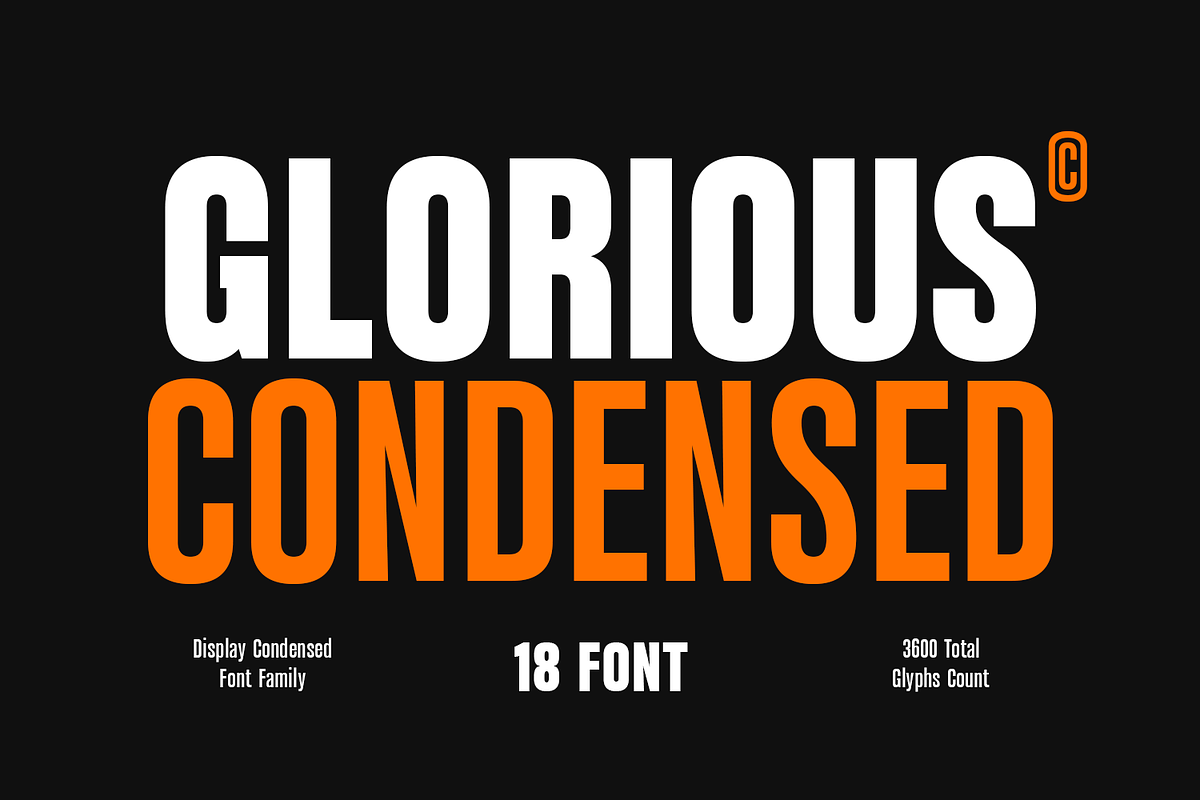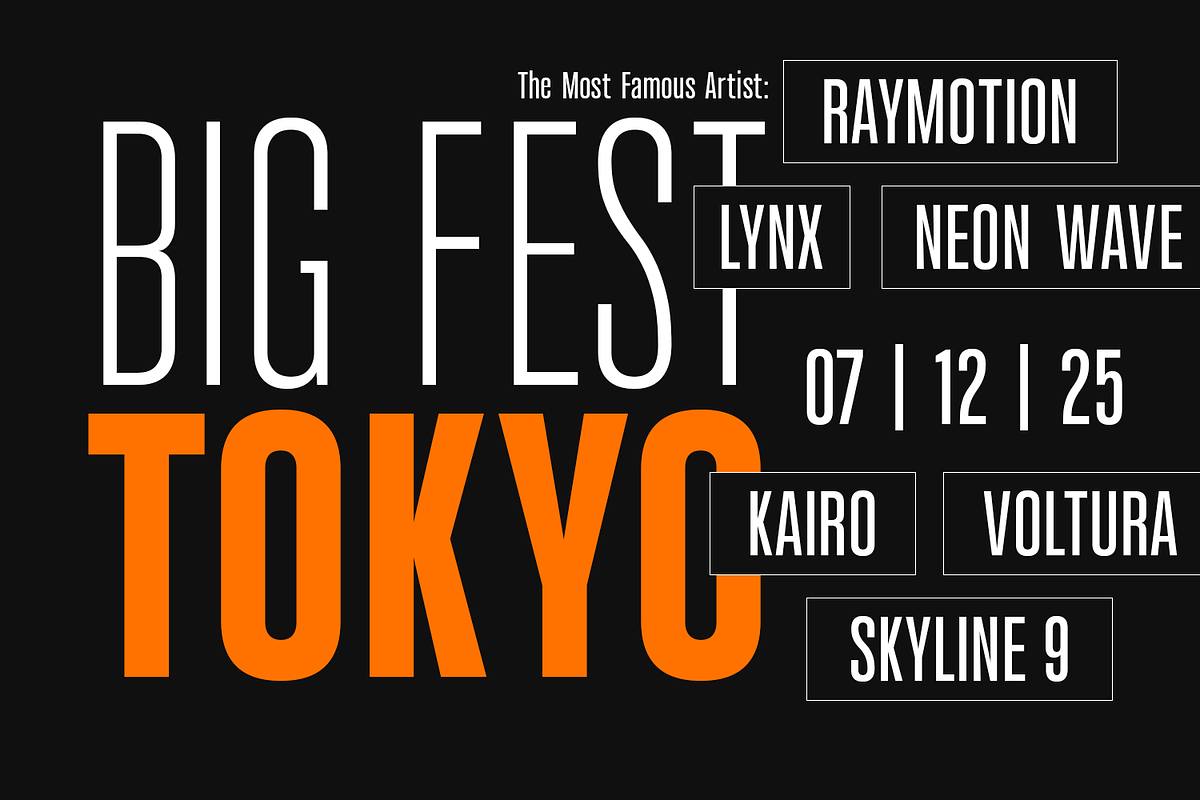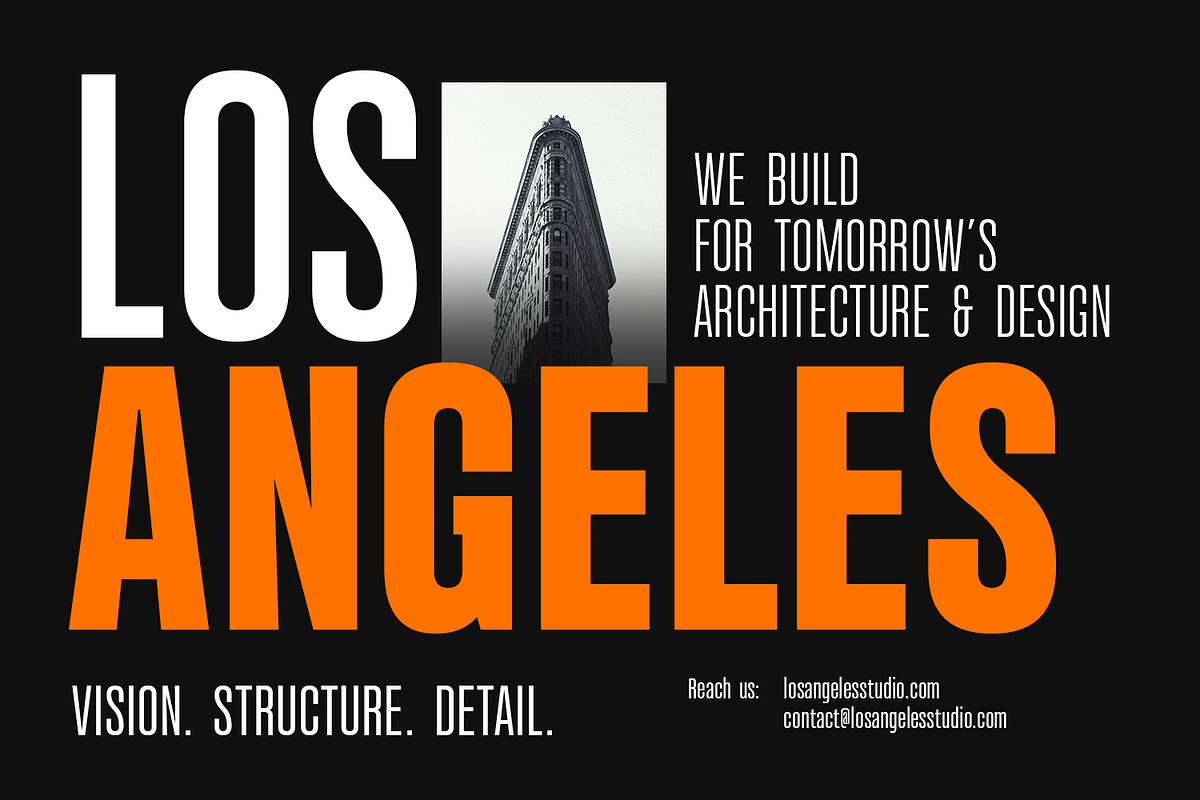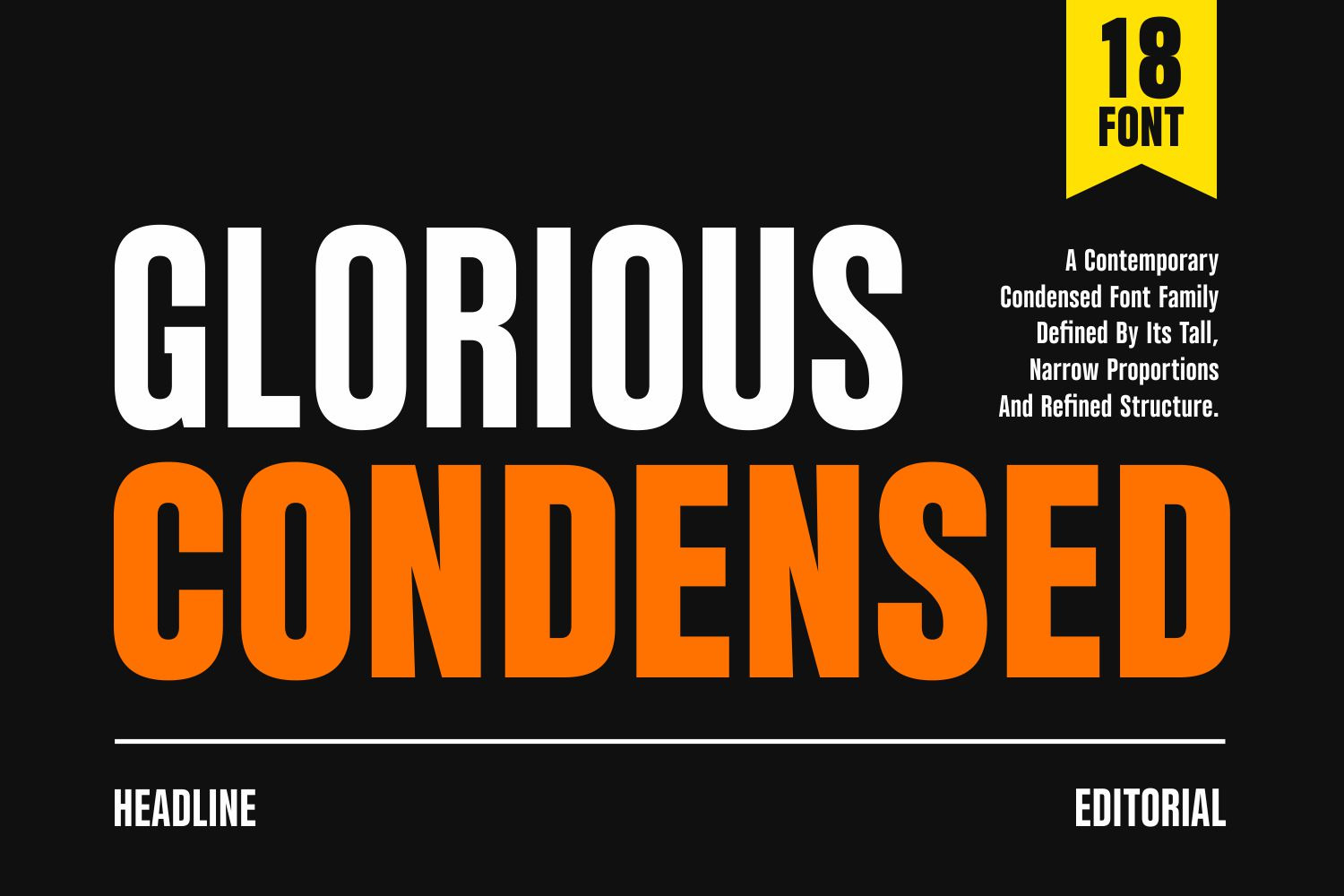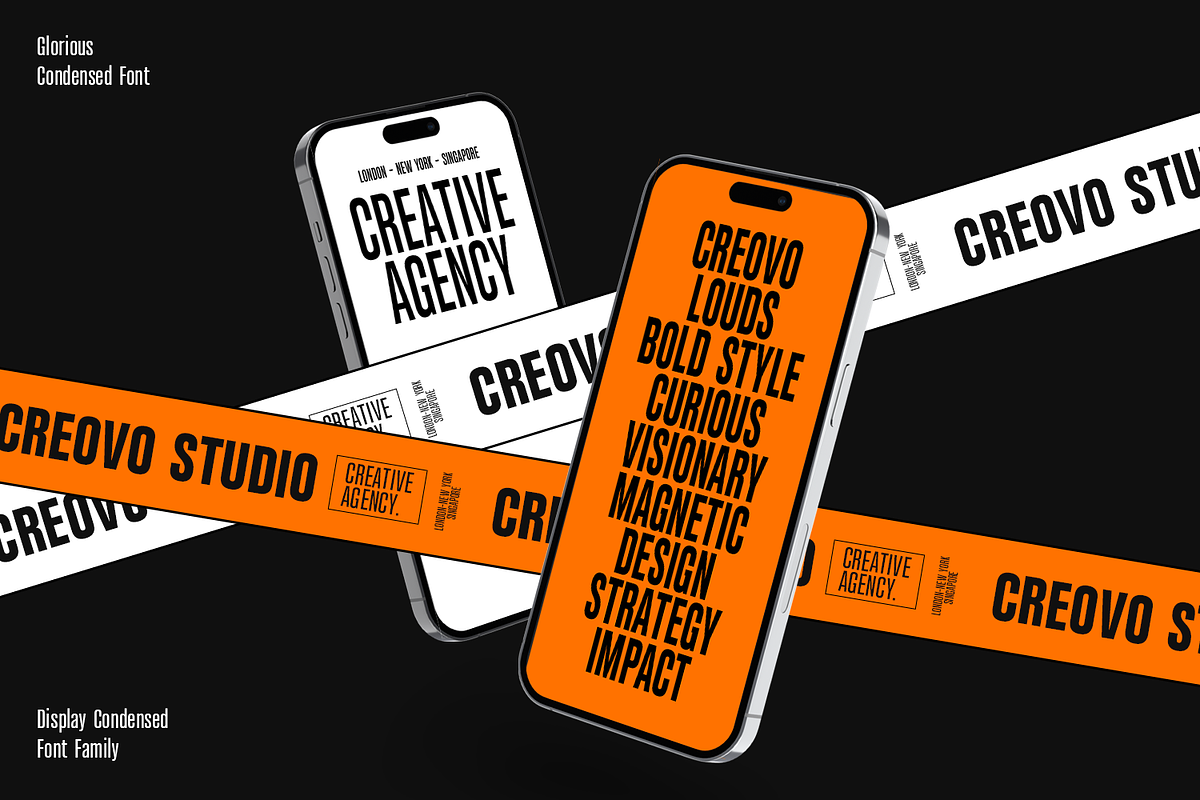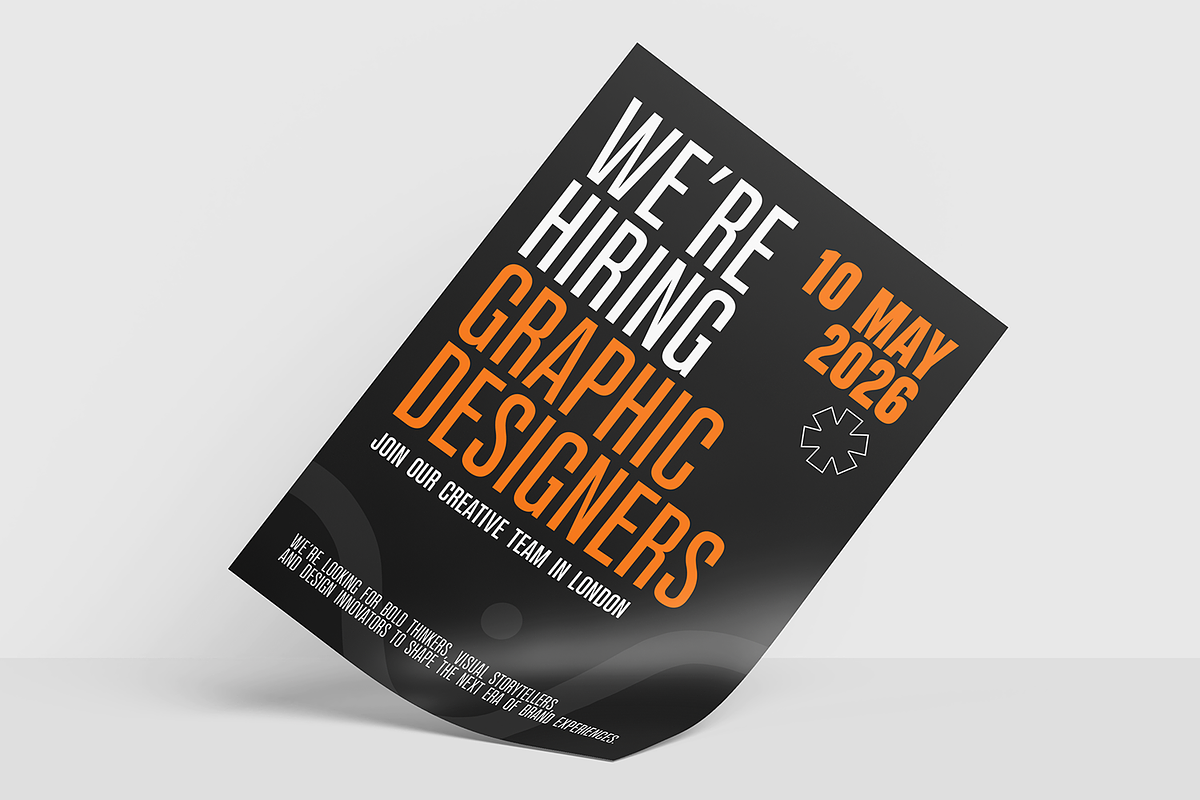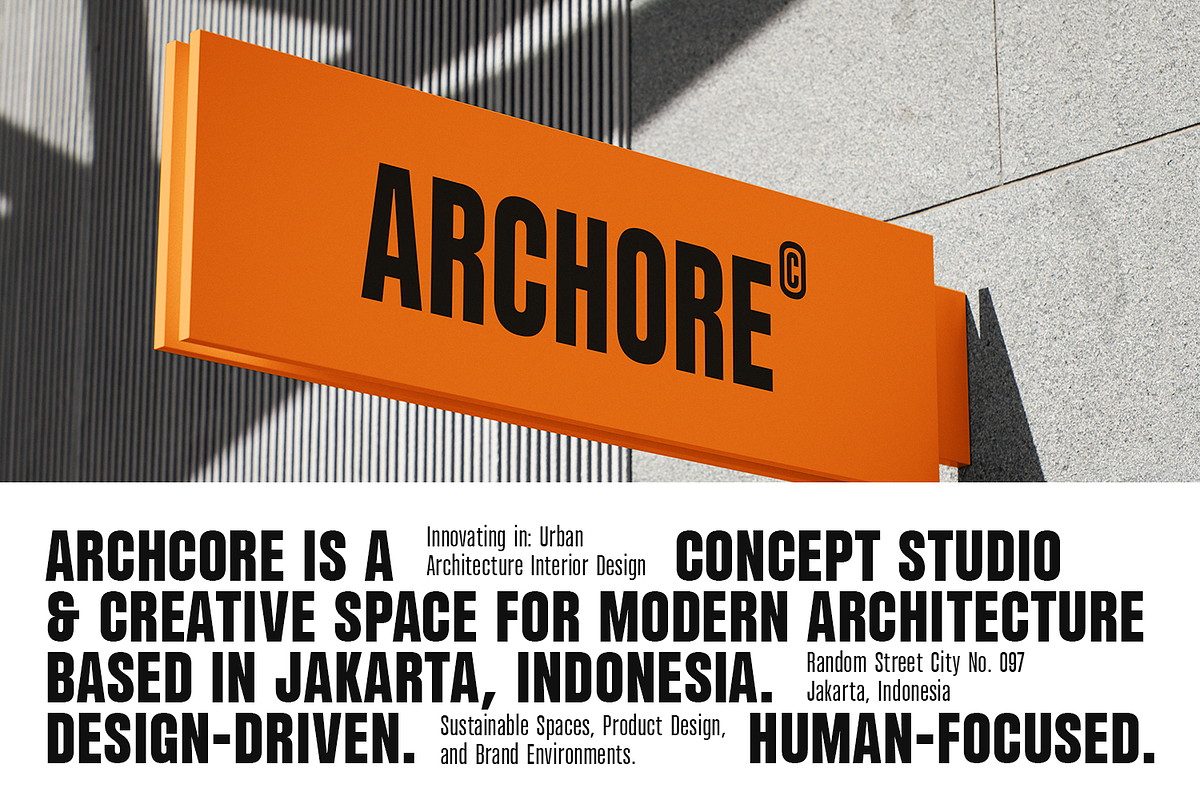
Glorious – Condensed Font Family
Glorious is a contemporary condensed font family defined by its tall, narrow proportions and refined structure. Its sleek geometry and balanced spacing deliver a sophisticated yet powerful visual presence, making it ideal for projects that demand precision and impact. The condensed form enhances readability even in limited spaces, maintaining clarity across a wide range of media.
Designed with versatility in mind, Glorious offers a complete range of weights from thin to black, each with carefully adjusted letterforms to ensure consistent legibility and visual rhythm. The font family’s adaptability allows it to perform equally well in digital screens, editorial layouts, posters, and product packaging. Its clean alignment and minimalistic character design create a modern, streamlined aesthetic suitable for both headline and paragraph applications.
The structural discipline of Glorious gives it a commanding presence without being overwhelming. Every curve and line has been fine-tuned to convey strength, precision, and sophistication. This makes it especially effective for branding, sports campaigns, and high-impact advertising where clarity and authority are essential.
Its condensed design optimizes space while maintaining elegance, making it an excellent choice for titles, magazine covers, and banners. Glorious also includes extensive multilingual support, numerals, and punctuation, ensuring compatibility across diverse design systems and global communication needs.
With its harmonious blend of elegance and boldness, Glorious stands as a modern expression of confidence and versatility. Its refined condensed style embodies both function and form, delivering a timeless tool for clear, powerful, and contemporary visual storytelling.